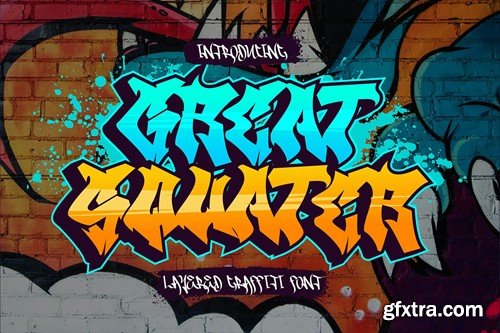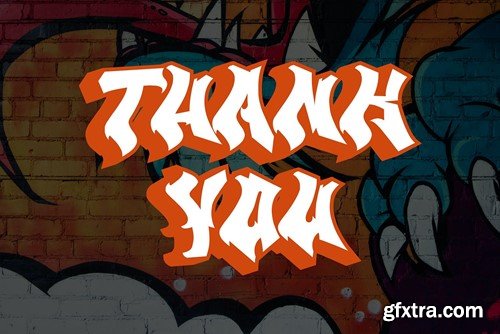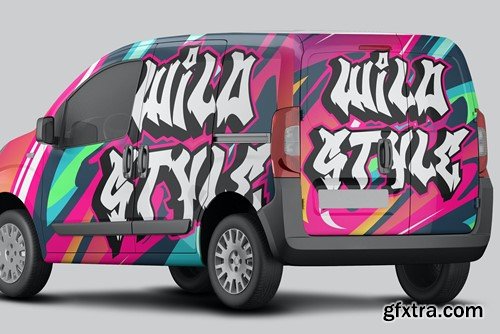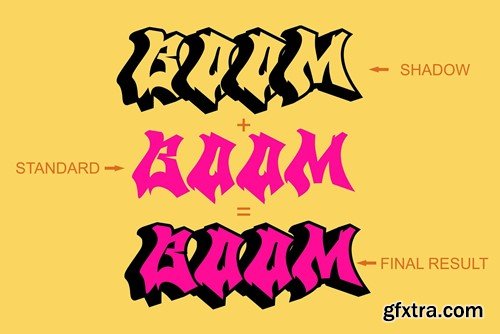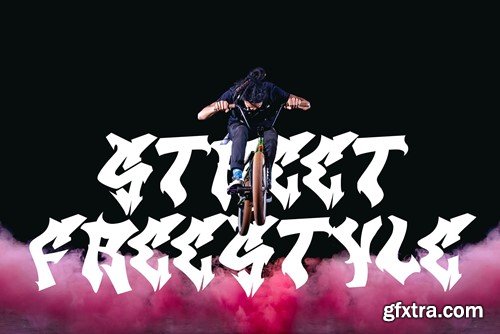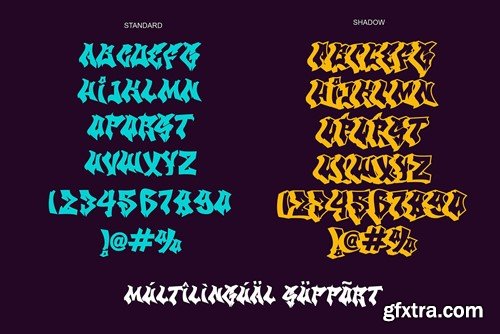
大 squater - 3d 层叠涂鸦字体 BMSJMGM
Great Squater - 3d Layered Graffiti Font BMSJMGM
Great Squater - 3d Layered Graffiti Font
Great Squater is a graffiti font with two layers: solid and shadow. By using both of these layers in your design, you can create a three-dimensional (3D) effect on your text. Fonts like this are often used in street art, posters, or other designs that aim to add depth and dimension to their typography.
With Great Squater, you have the flexibility to make your text appear more dynamic and three-dimensional by using different layers. This allows you to customize the text's appearance to fit your design concept.